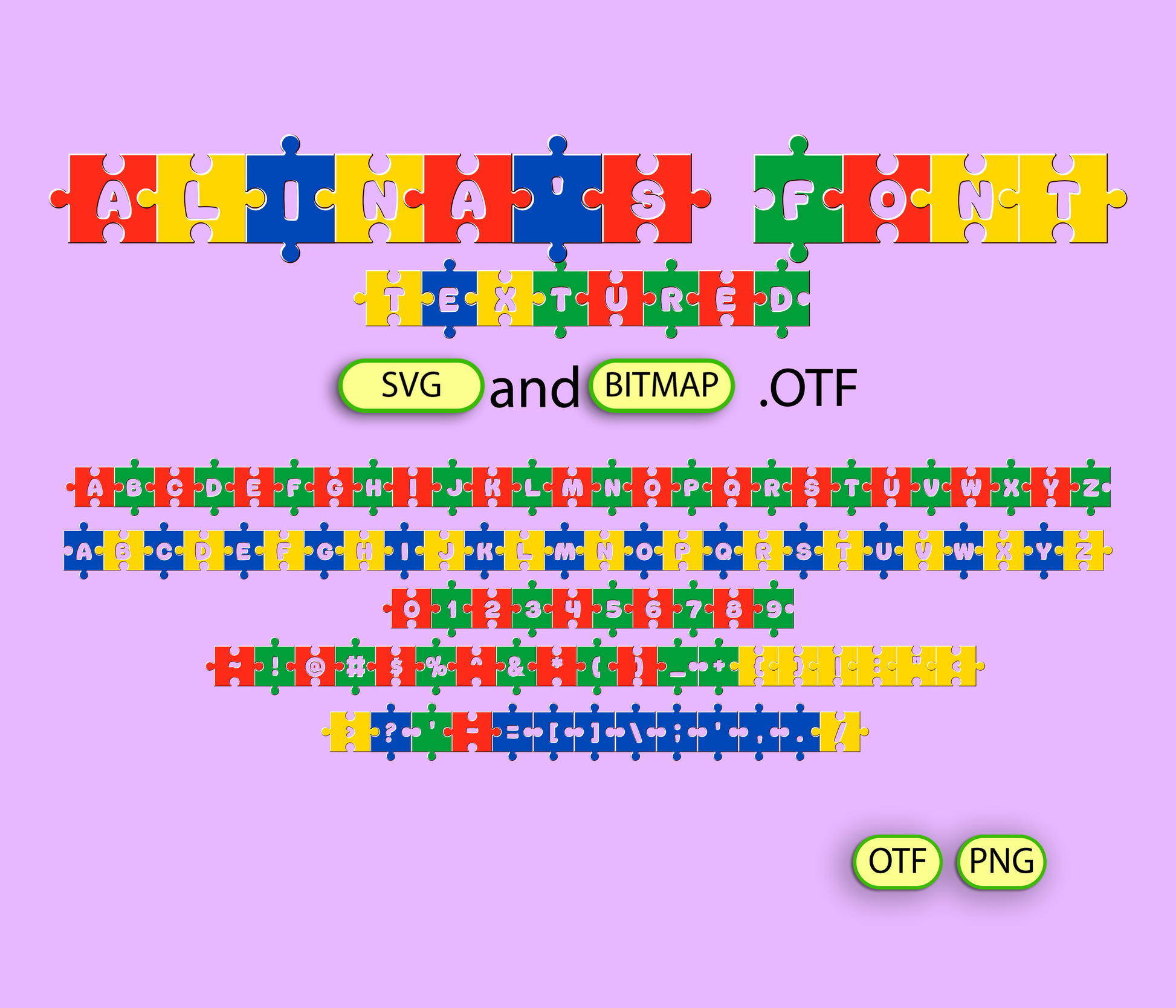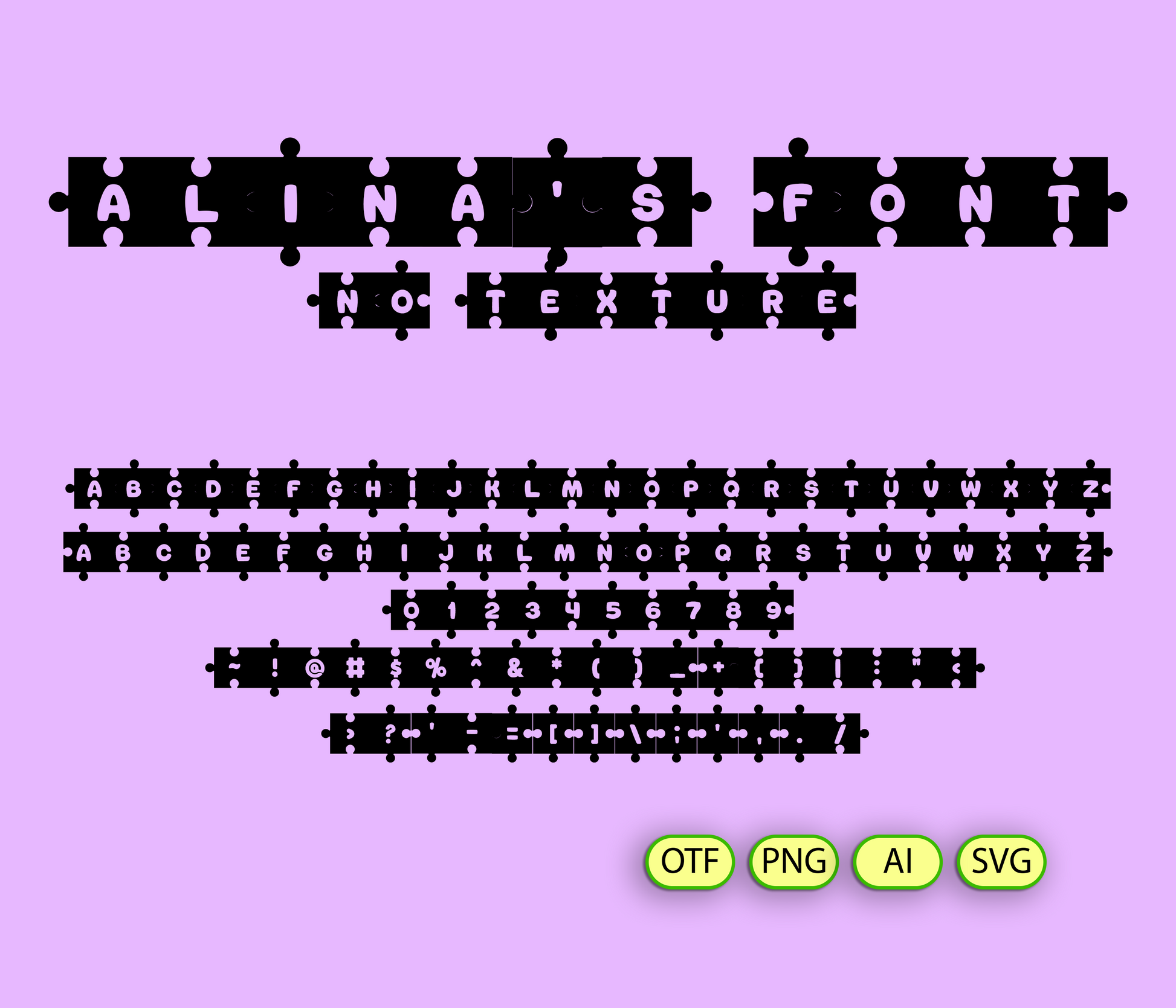
Spectrum Connection Font Textured
Step into the world of colorful interlocking elements with our Spectrum Connection font, capturing the essence of awareness and unity through distinctively shaped letterforms. Perfect for community builders, educational specialists, support networks, and design professionals, this font brings the thoughtful, inclusive spirit of understanding to your projects. Create resource materials, community outreach, or digital content with the powerful symbolism of interconnected pieces in bright spectrum hues.
Our Spectrum Connection font features engaging, linked patterns and piece-inspired characters reflecting diversity and togetherness within supportive communities. Ideal for:
- Community Initiatives: Create eye-catching materials, posters, and banners for understanding events, information sessions, and inclusion gatherings
- Resource Development: Perfect for support guides, informational literature, and publications that foster acceptance and awareness
- Digital Presence: Enhance websites, blogs, and social media with captivating headers and graphics that express dedication to understanding and support
- Learning Materials: Add authentic character to educational resources, presentations, and materials developed for varied learning approaches
- Personal Projects: Bring meaningful symbolism to family celebrations, DIY crafts, and home decor inspired by the colorful spectrum of connection
Our font pays tribute to the meaningful symbolism of acceptance and diversity, empowering your designs with its vibrant and thoughtful spirit. Whether crafting awareness materials, designing supportive resources, or adding a meaningful touch to personal projects, this font communicates the importance of understanding and connection. Ready to inject powerful symbolism into your creations? This font is your key to impactful, meaningful design.